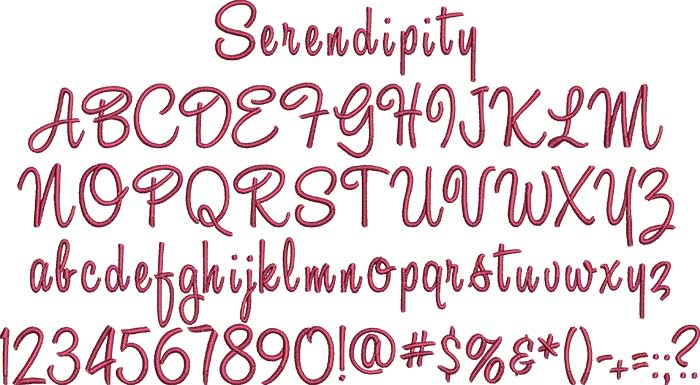
BX Embroidery Font: Serendipity
BX Embroidery Font: Serendipity Font Bundle (4 sizes) is a casual, upright fun script machine embroidery font that includes A-Z, a-z, 0-9 and punctuation; 4 sizes.
BX Embroidery Font: Serendipity is a casual, upright fun script machine embroidery font that includes A-Z, a-z, 0-9 and the following punctuation: !@#$%&*()-+=|:;”‘,.?/ (84 total characters).
Each character in this alphabet is individually manually digitized; we do not use a TrueType to Stitches conversion utility to create our fonts. Additionally, stitch attributes such as stitch type, density, compensation, and underlay are optimized for each size available. Choose the size closest to what you need. Shrinking the smallest size is not recommended.
Our fonts were manually digitized; we do not use a TrueType to Stitches conversion utility to create our fonts. Plus, stitch attributes such as density, compensation, and underlay are optimized for each size available.